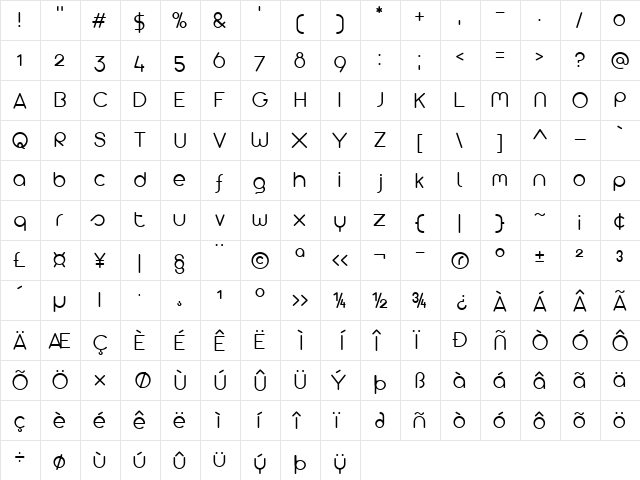
Arista 2.0 Alternate Light Regular
| Foundry | studio kmzero |
| Designer | Francesco Canovaro |
Design Context for Arista 2.0 Alternate Light Typeface
Arista 2.0 Alternate Light takes a measured approach to typography — its balanced proportions and neutral character make it a reliable workhorse for both digital and print work. The delicate stroke weight brings airiness and refinement to layouts.